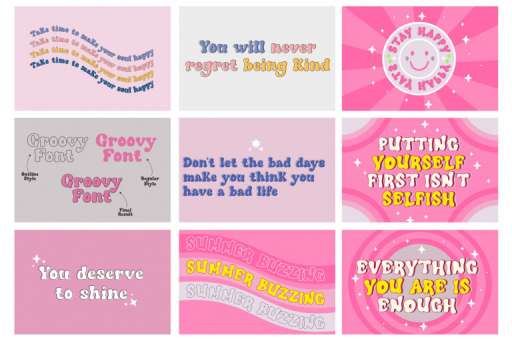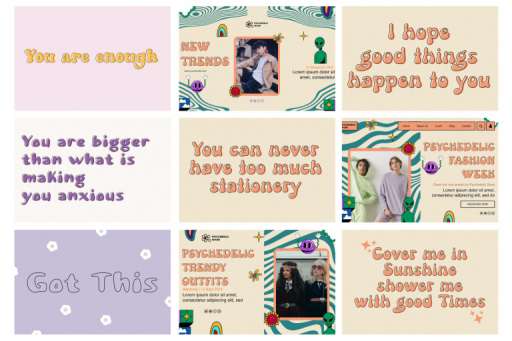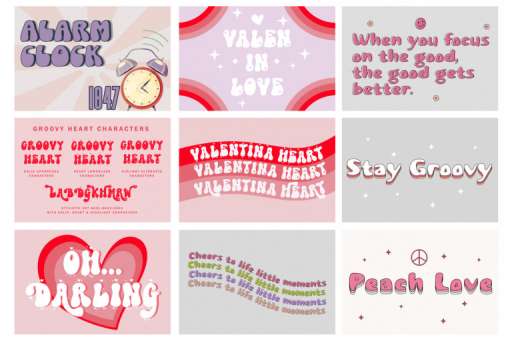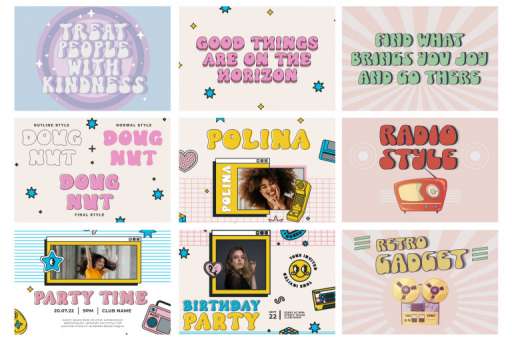
Handwritten Groovy Font Bundle - Groovy Font From Jimtype Studio
Bambi Retro Font
Bambi Retro Outline
Fabrica Creativa Font
Fabrica Creativa Outline
Flabbio Groovy Font
Flabbio Groovy Outline
Groovy Heart Font
Groovy Daisy Font
Groovy Daisy Outline
Nut and Chips Font
Nut and Chips Outline
Pure Love Font
Pure Love Outline
Stay Vibes Font
Handwritten Groovy Font Bundle
Handwritten Groovy Font Bundle includes 8 fonts, this font is easy to use and very suitable for branding, crafting, and designing retro style.